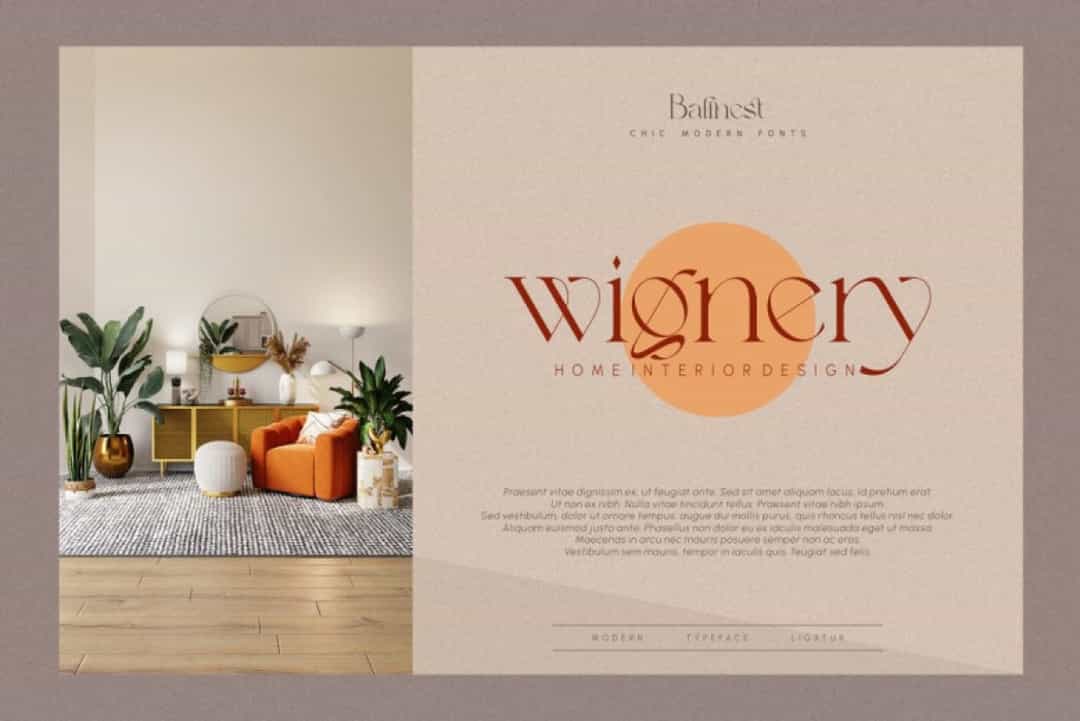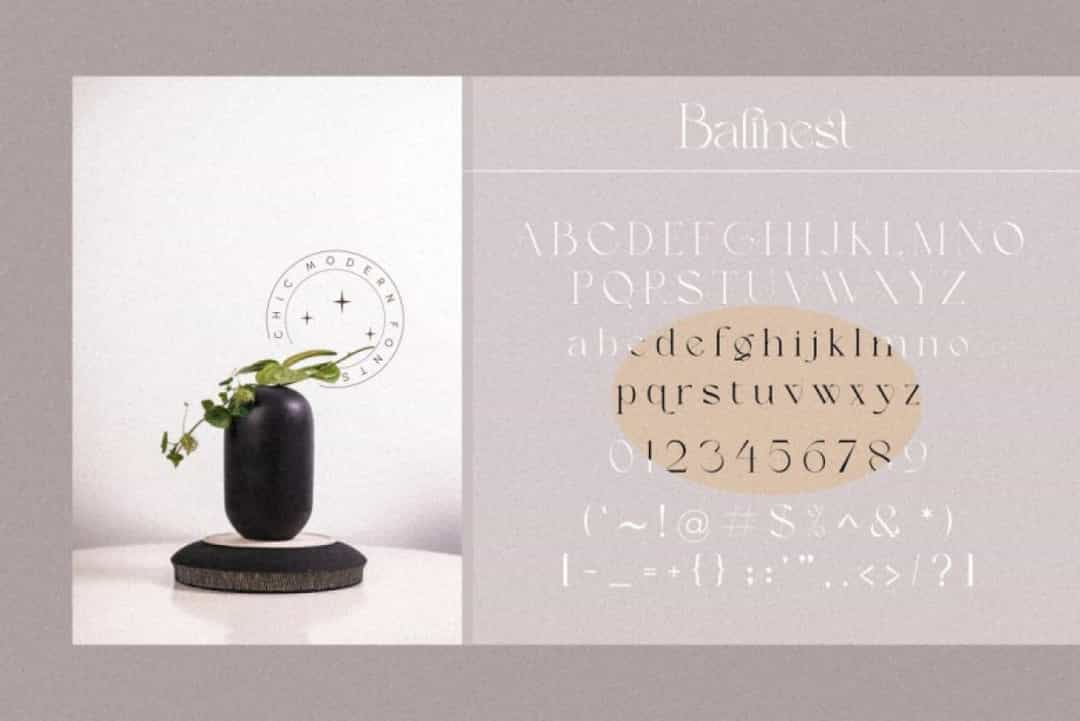
Discover Balinest Font, part of the Serif collection—a versatile and unique font perfect for adding a personal touch to your projects. Download it for free and enjoy crafting designs with style, from invitations to social media posts. This font is available exclusively for personal use, giving you the freedom to create without limits. Unlock your creativity with Balinest Font today!
Balinest is an elegant font which can be accessed using various fonts, and features silky binding for an expensive-looking effect. Balinest font is an elegant and sophisticated choice perfect for branding purposes such as logos, fashion images magazine pages wedding invitations jewelry posters clothing packaging websites headers for websites as well as trendy text overlays over background pictures.